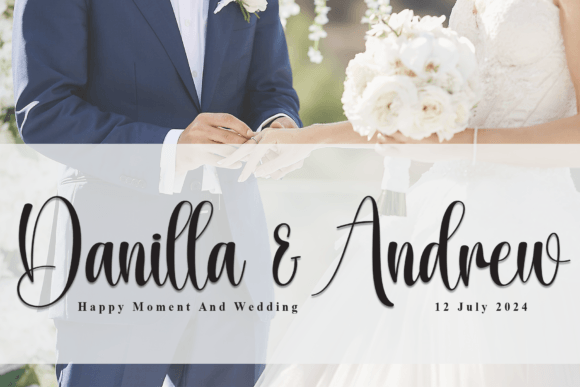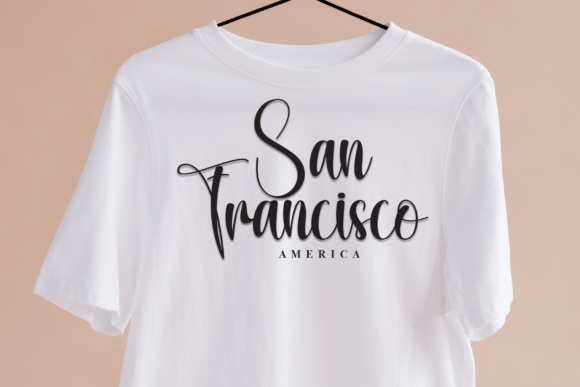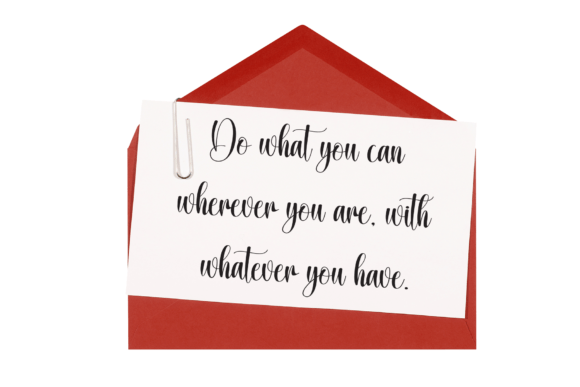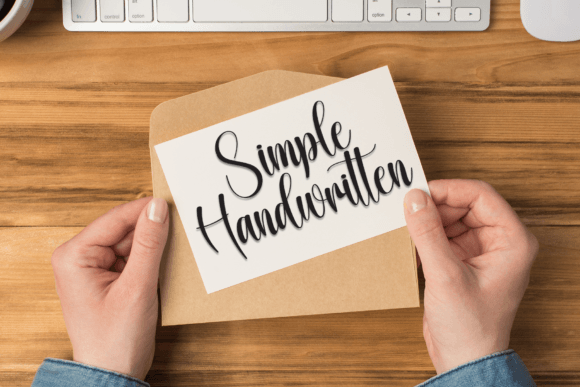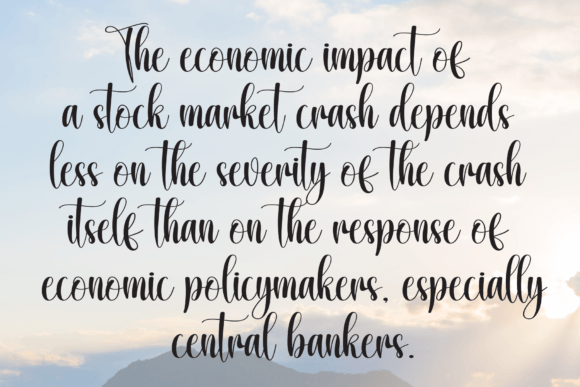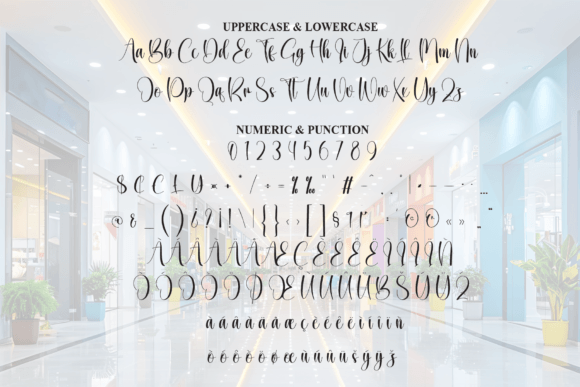
Cinematic Font: Elevate Your Designs with Elegance and Charm
In the world of typography, fonts play a crucial role in conveying the tone and personality of a design. For designers and crafters looking to add a touch of sophistication and warmth to their work, Cinematic Font is an excellent choice. This stylish handwritten script font is designed to exude elegance and charm, making it perfect for a variety of creative projects.
The Characteristics of Cinematic Font
Cinematic Font boasts fluid strokes and a natural flow, creating a captivating and sophisticated look that is sure to impress. Its handwritten script style gives it a personal and intimate feel, making it ideal for adding a touch of warmth to any design. The font’s elegant and charming aesthetic makes it suitable for a range of applications, from invitations and branding to social media and more.
Whether you’re a designer, crafter, or DIY enthusiast, Cinematic Font is a versatile and valuable addition to your typography collection. Its unique and stylish aesthetic makes it perfect for:
- Invitations: Add a touch of elegance and sophistication to your wedding invitations, party invites, or any other special occasion.
- Branding: Use Cinematic Font to create a unique and memorable brand identity that sets you apart from the competition.
- Social Media: Elevate your social media graphics and posts with a font that exudes warmth and creativity.
- Stationery: Add a personal touch to your stationery, including notebooks, journals, and greeting cards.
Why Choose Cinematic Font?
With so many fonts available, why choose Cinematic Font? Here are just a few reasons:
- Unique and Stylish: Cinematic Font offers a distinctive and stylish aesthetic that will set your designs apart.
- Elegant and Charming: The font’s elegant and charming aesthetic makes it perfect for adding a touch of sophistication to any design.
- Versatile: Cinematic Font is suitable for a range of creative projects, from invitations and branding to social media and more.
Tips for Using Cinematic Font
To get the most out of Cinematic Font, here are a few tips:
- Pair with Other Fonts: Combine Cinematic Font with other fonts to create a unique and visually appealing typography combination.
- Experiment with Colors: Try pairing Cinematic Font with different colors to create a range of effects and moods.
- Use it Sparingly: Use Cinematic Font sparingly to add a touch of elegance and sophistication to your designs.
Cinematic Font is a stylish and elegant handwritten script font that is perfect for adding a touch of sophistication and warmth to any design. With its fluid strokes and natural flow, this font creates a captivating and charming aesthetic that is sure to impress. Whether you’re a designer, crafter, or DIY enthusiast, Cinematic Font is a valuable addition to your typography collection.
Get Creative with Cinematic Font